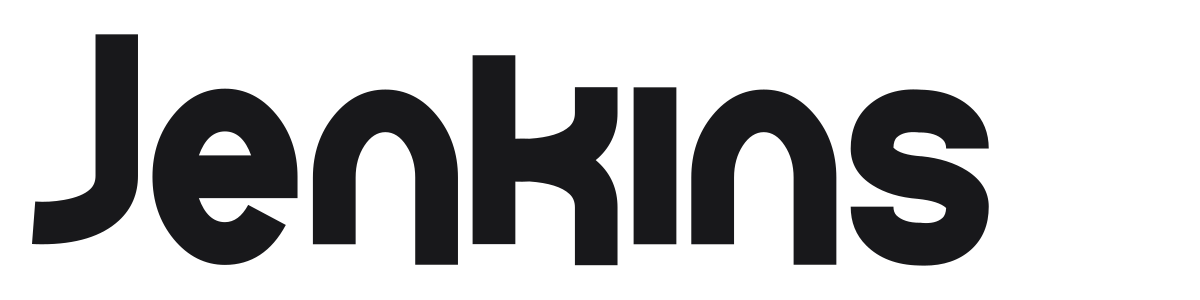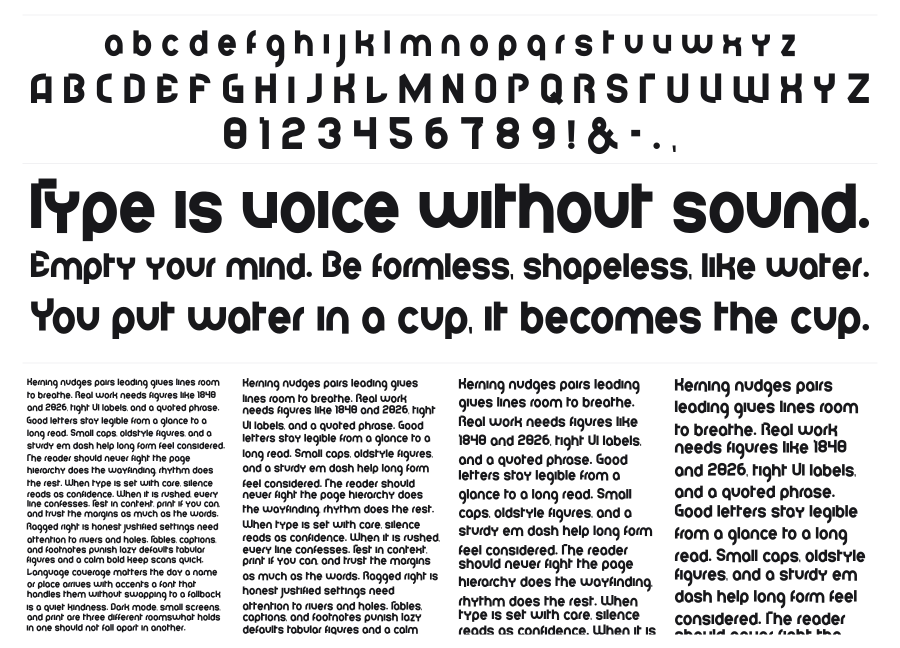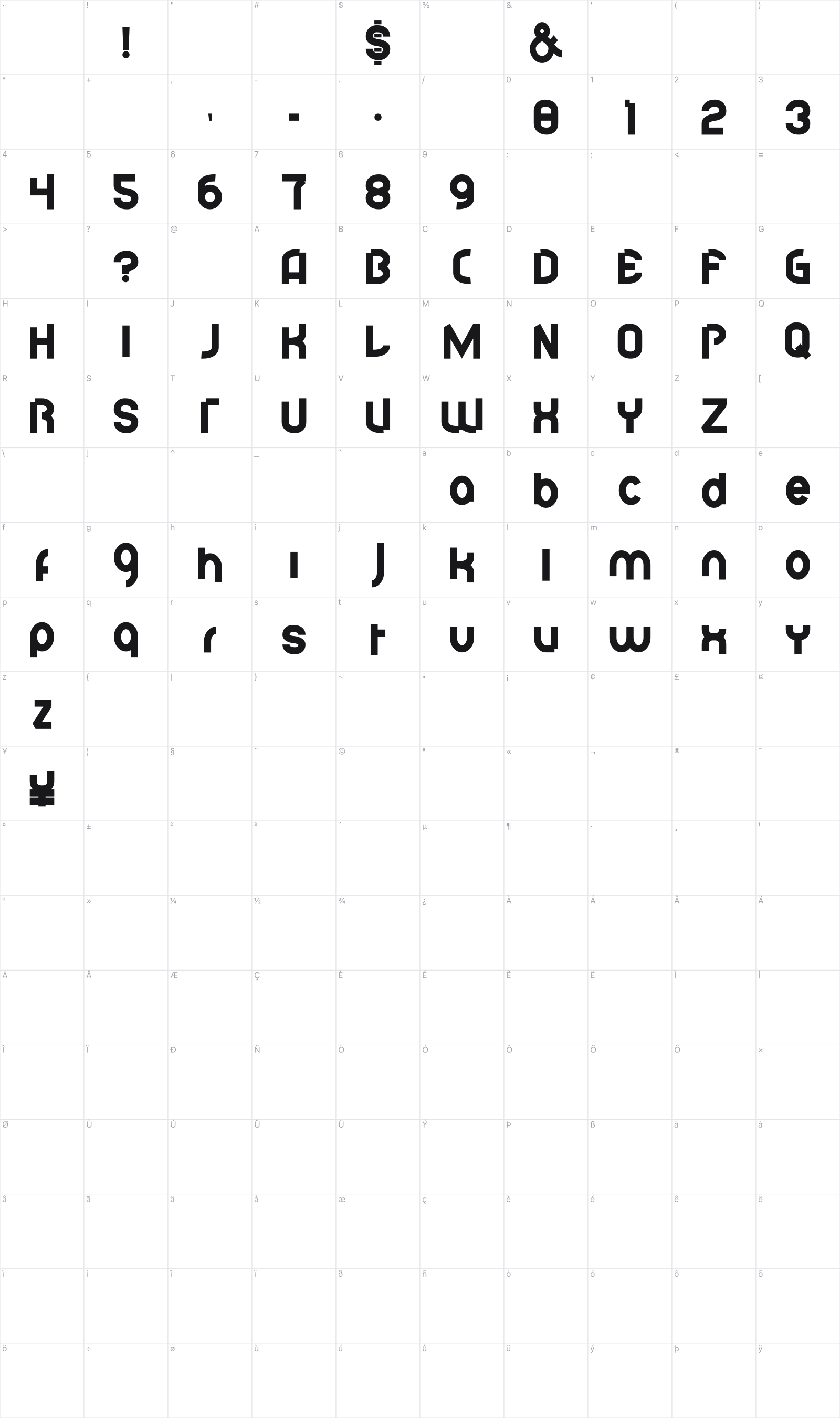
Jenkins
Jenkins is a heavy rounded sans-serif with comic book personality and a slight anime-inspired flair. Thick strokes and soft, inflated terminals give it a bold, casual energy that works well for game titles, comic logos, and youth-oriented branding. The loose, bouncy construction keeps it from feeling stiff even at large sizes.